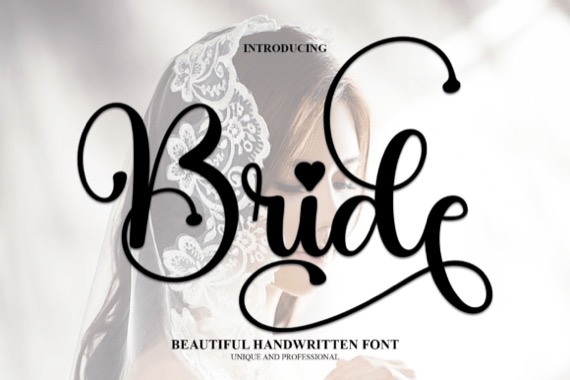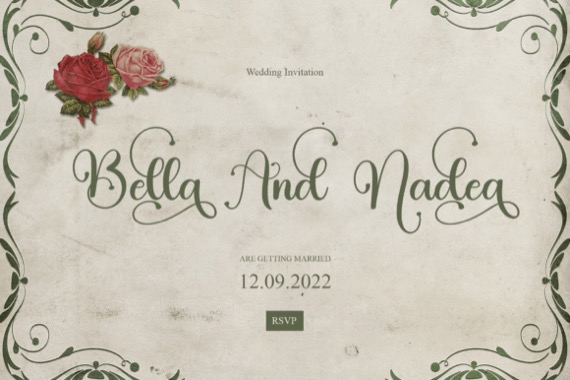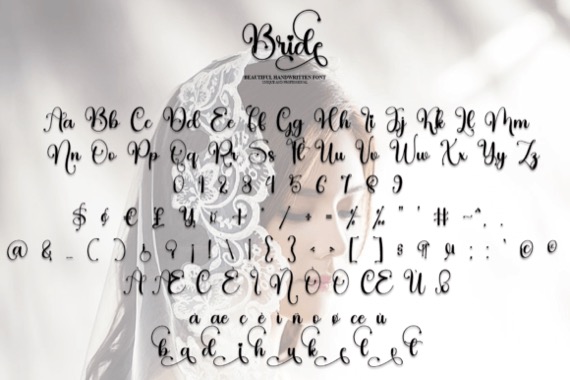
Bride is an elegant and feminine calligraphy script font that was created and shared by PAYJHOshop, it’s suitable for all types of headlines. It will be a perfect choice for all kinds of wedding stationery, invitations, florists, packaging, and social media posts.
Bride Calligraphy Script Font
Designer, Publisher: PAYJHOshop